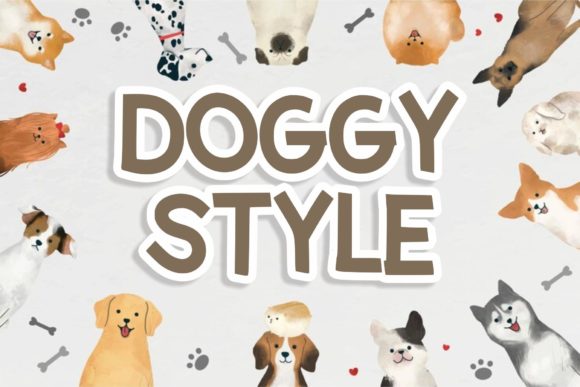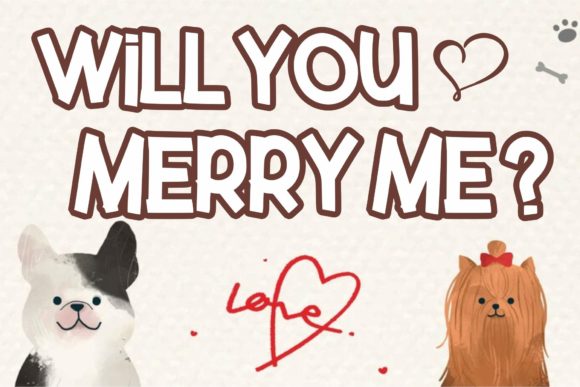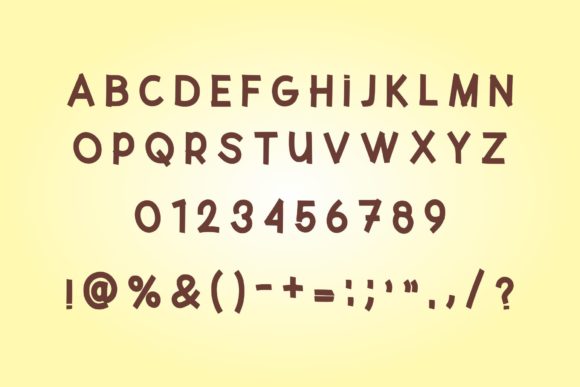
Introduction to Shaggy Dog Font
Shaggy Dog is a fun and friendly display font.
Its informal feel and relaxed atmosphere make it a top choice for any creation that requires a touch of fun It will look beautiful on product packaging, t-shirts, labels, posters, logos, and anything else you want to develop.
Shaggy Dog Font offers exceptional quality and versatility, making it a valuable addition to your design toolkit. Whether you’re creating for personal projects or commercial use, Shaggy Dog Font delivers professional results.